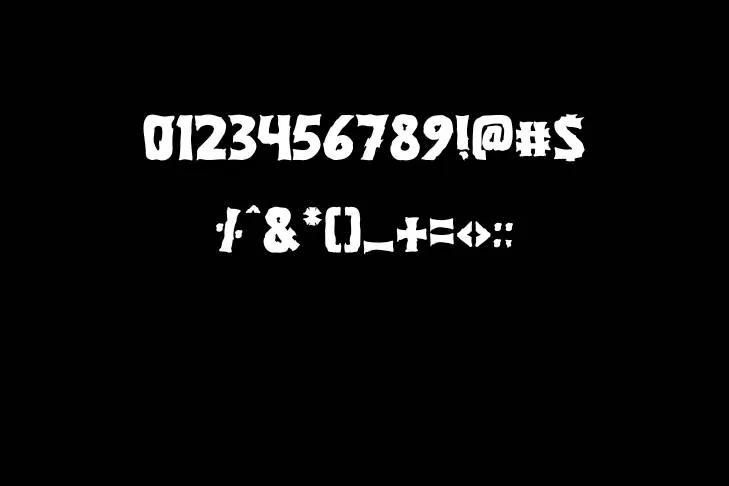
Pumpkin Night font is a creative, spooky Display typeface that is peculiarly designed by a well-known font studio named Balpirick Studio. This studio has presented many other famous fonts as well which are well-received by the designers and users.
Creative Ways to Use Pumpkin Night Font
This versatile typeface can be utilized for various applications because it has a unique style that goes perfectly with Halloween-themed designs, posters, greeting cards, and other projects that demand an eerie and spooky touch. To ensure optimal audience response, incorporate the poseidon font in conjunction with this font family for a compelling pairing.
Moreover, its scary and terrific style of lettering urges the designers to optimize it to give a horrific touch to projects like Halloween-themed shirts, pots, cards, and other related items. Various designers also utilize it to create titles and posters for scary-type movies.
Its horrific yet funky style of lettering is perfect to create spooky animations and graphic design projects and its distinguished text structure mesmerizes the audience as well. Its impact leaves an everlasting impression on people’s minds so, you must go with this typeface to create incredible projects.
Display Image of Pumpkin Night Font
Name | Pumpkin Night Font |
Designer | Balpirick Studio |
Style | Display |
Pumpkin Night Font Pairings
This awesome yet creepy typeface combines well with other Display typefaces which also beholds a similar style of lettering. Some font pairing suggestions are listed below:
- Dark Theatre Font
- Haunted By The Night Font
- Bangers Font
- Creepster Font
Variations and Styles in Font Family
This amazing yet scary font belongs to a single-weight family that is, Regular. Although, this singular weight is enough to fulfill the requirements of your designs and projects.
What kind of font is the Pumpkin Night Font?
Pumpkin Night font is a creative, spooky Display style that is peculiarly designed by a known font studio named Balpirick Studio. This studio has offered many other famous fonts as well which are received by the designers and users.
Where can I use the Pumpkin Night typeface?
This versatile typeface can be utilized for various applications because it has a unique style that goes perfectly with Halloween-themed designs, posters, greeting cards, and other projects that demand an eerie and spooky touch.
Which font pairs well with the Pumpkin Night font?
This awesome yet creepy style combines well with other Display styles which also beholds a similar style of lettering like Creepster or Bangers font.